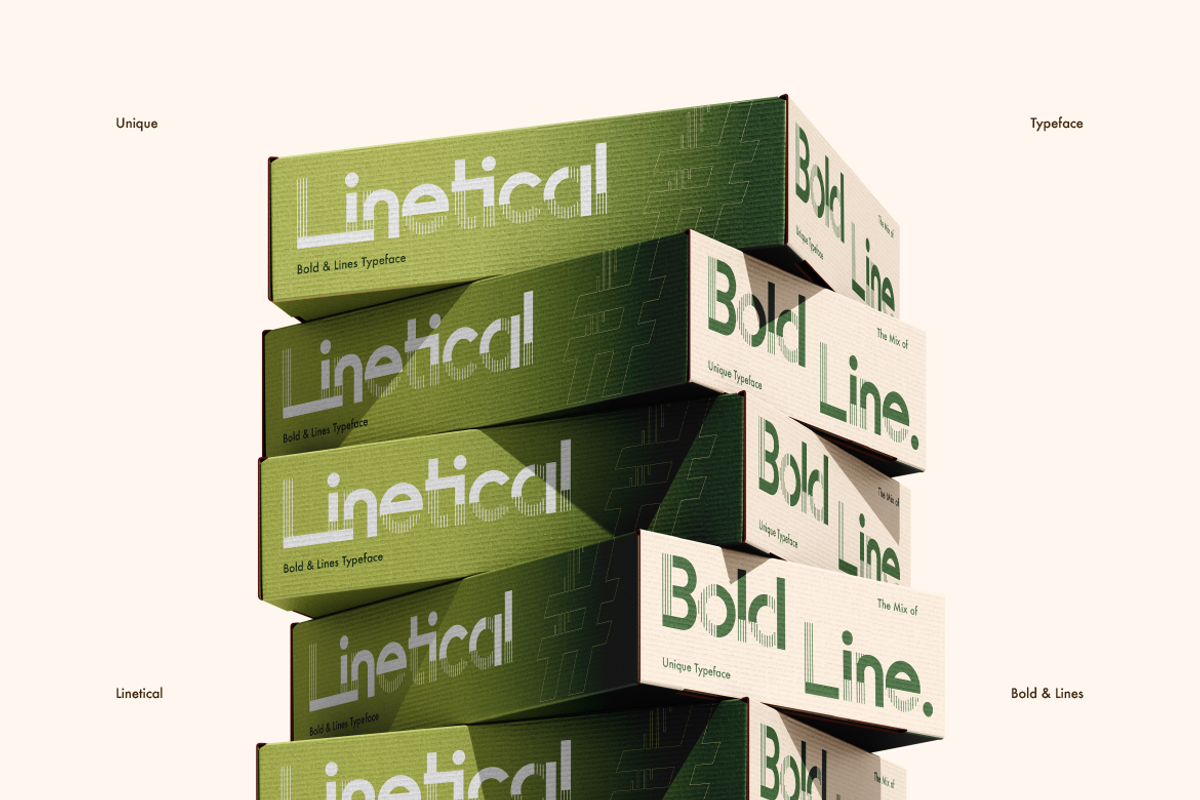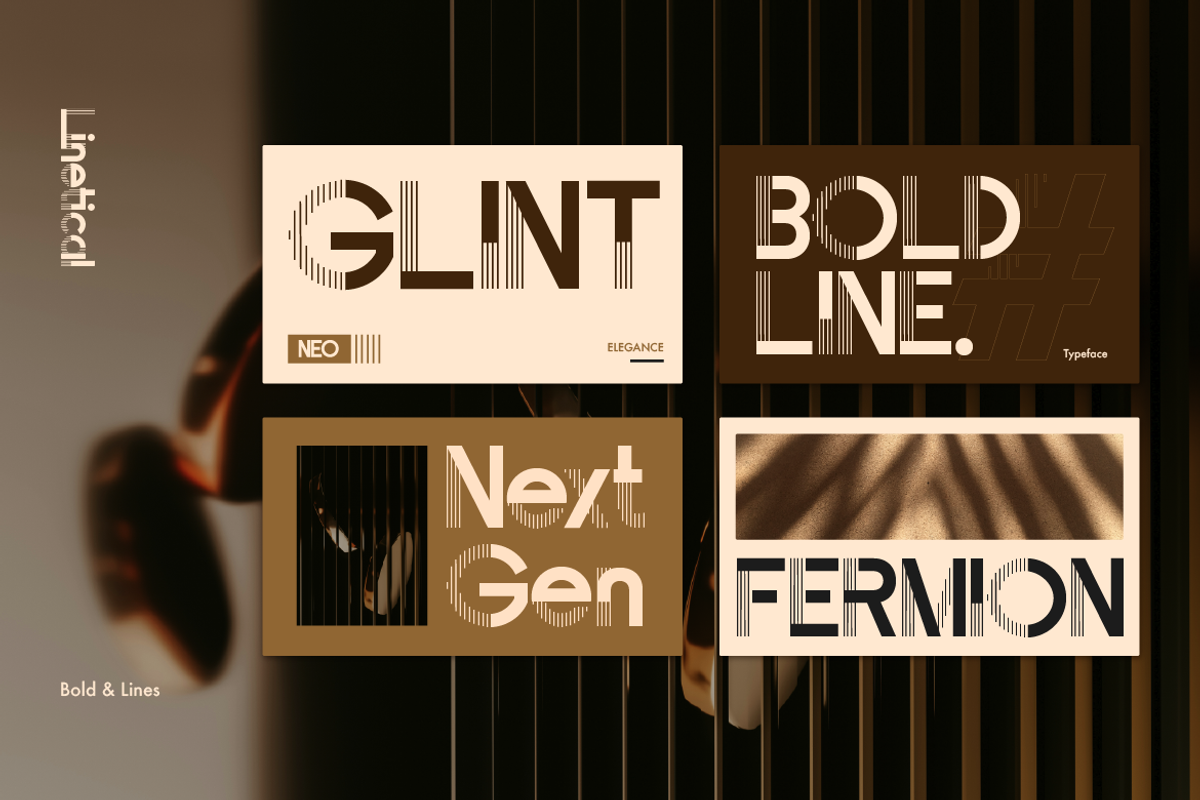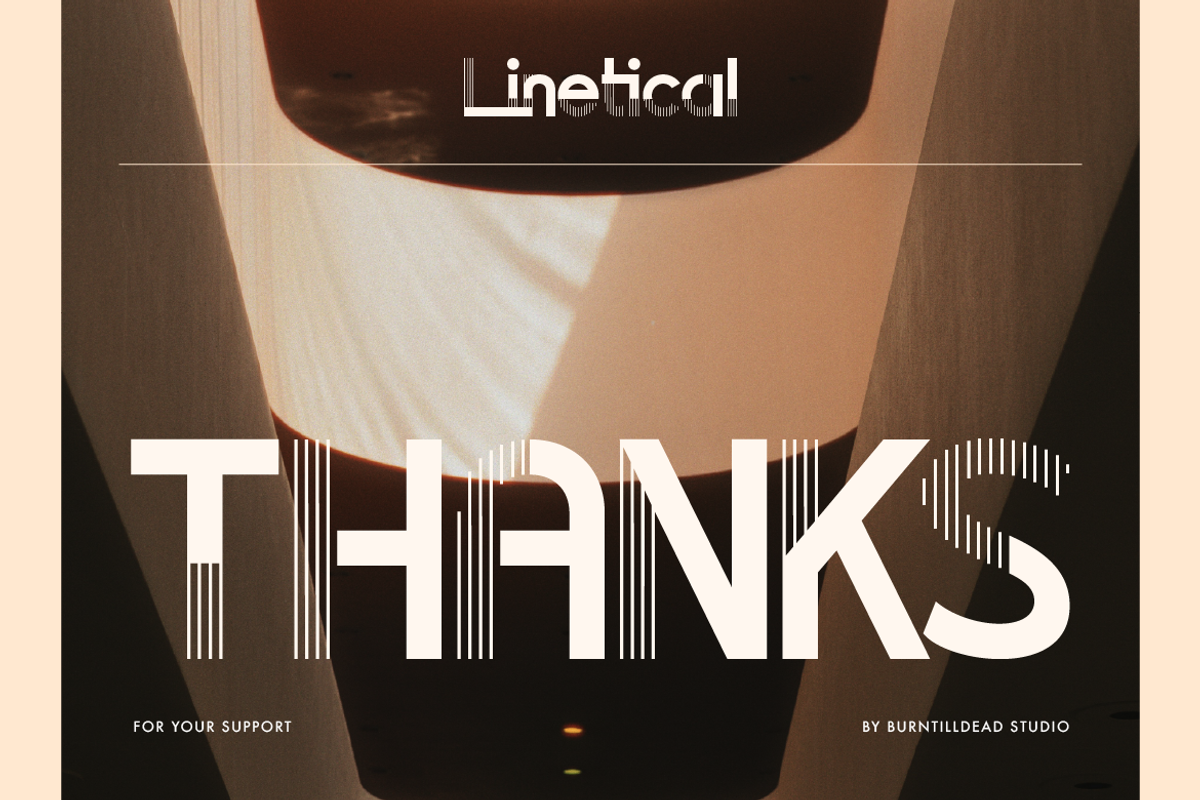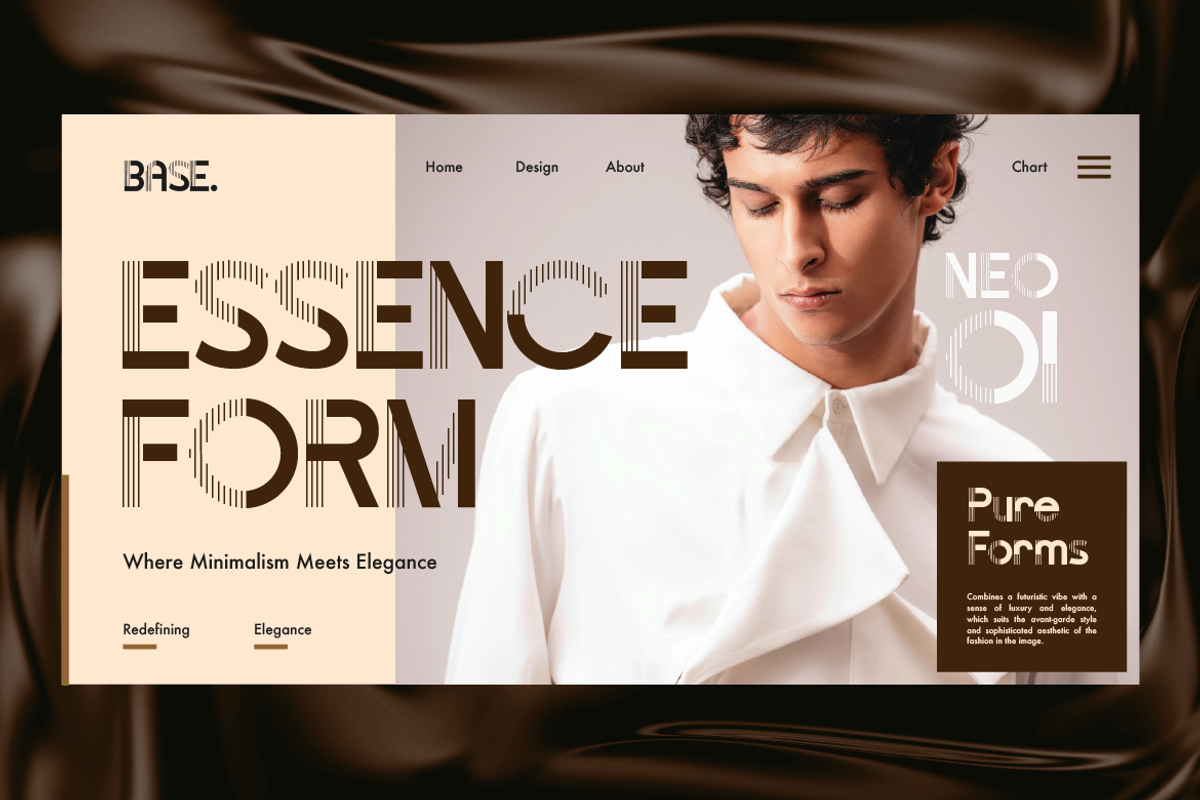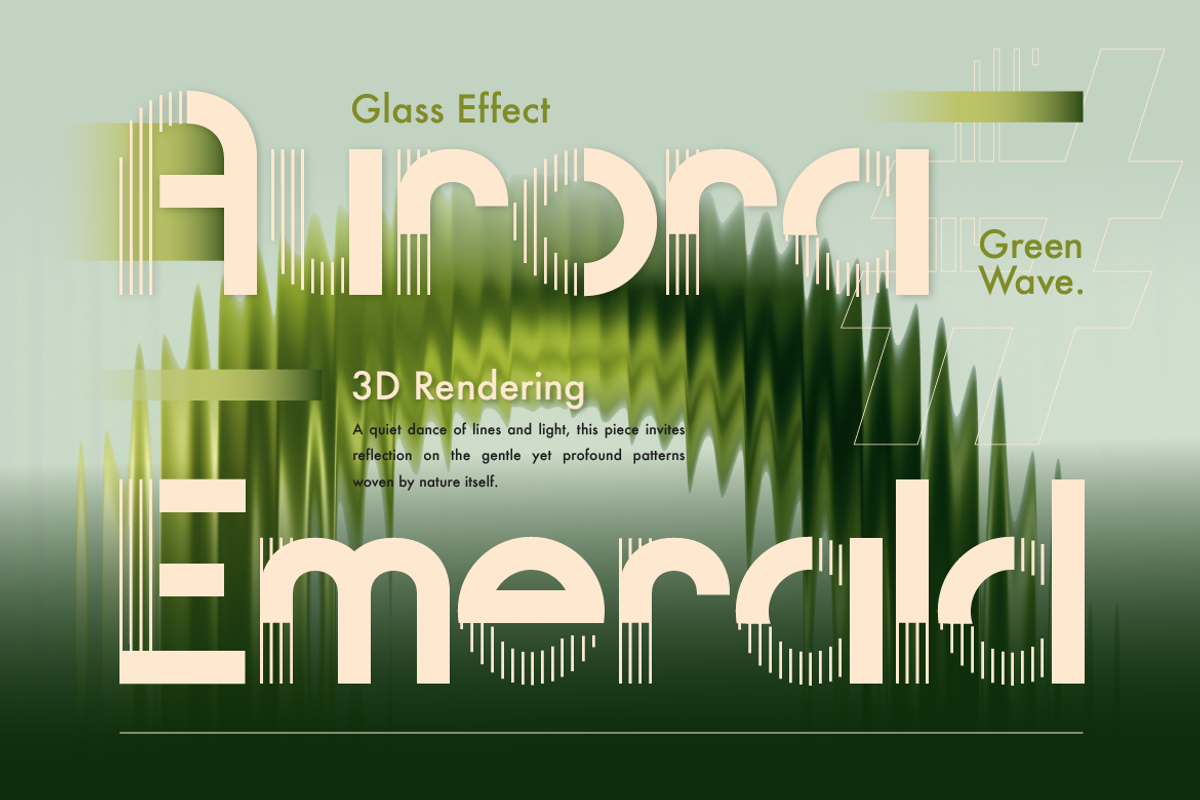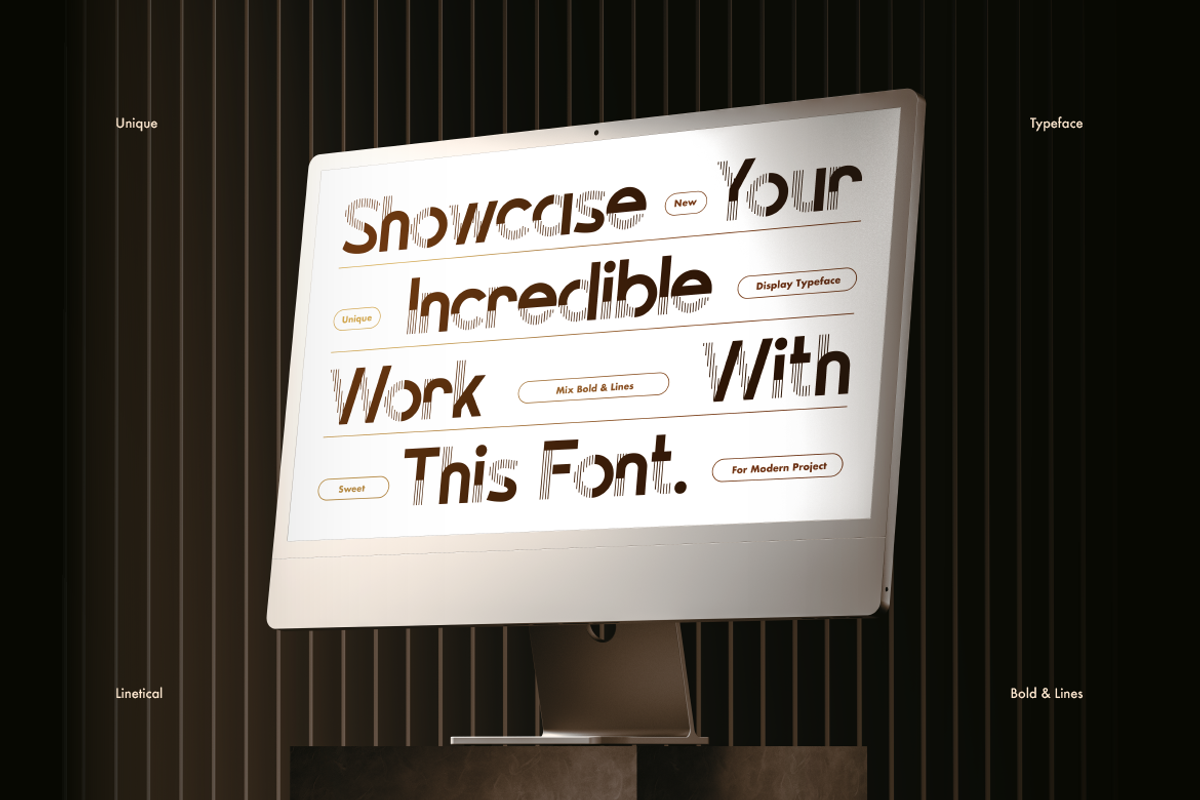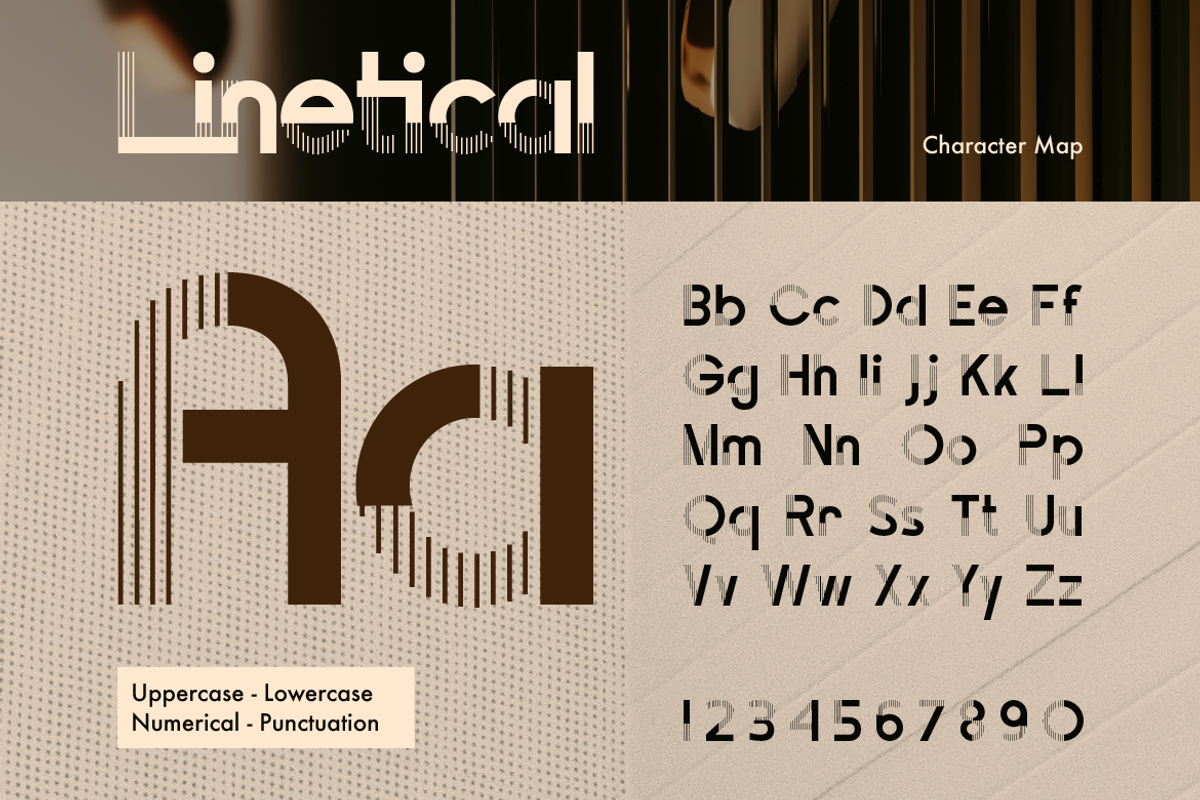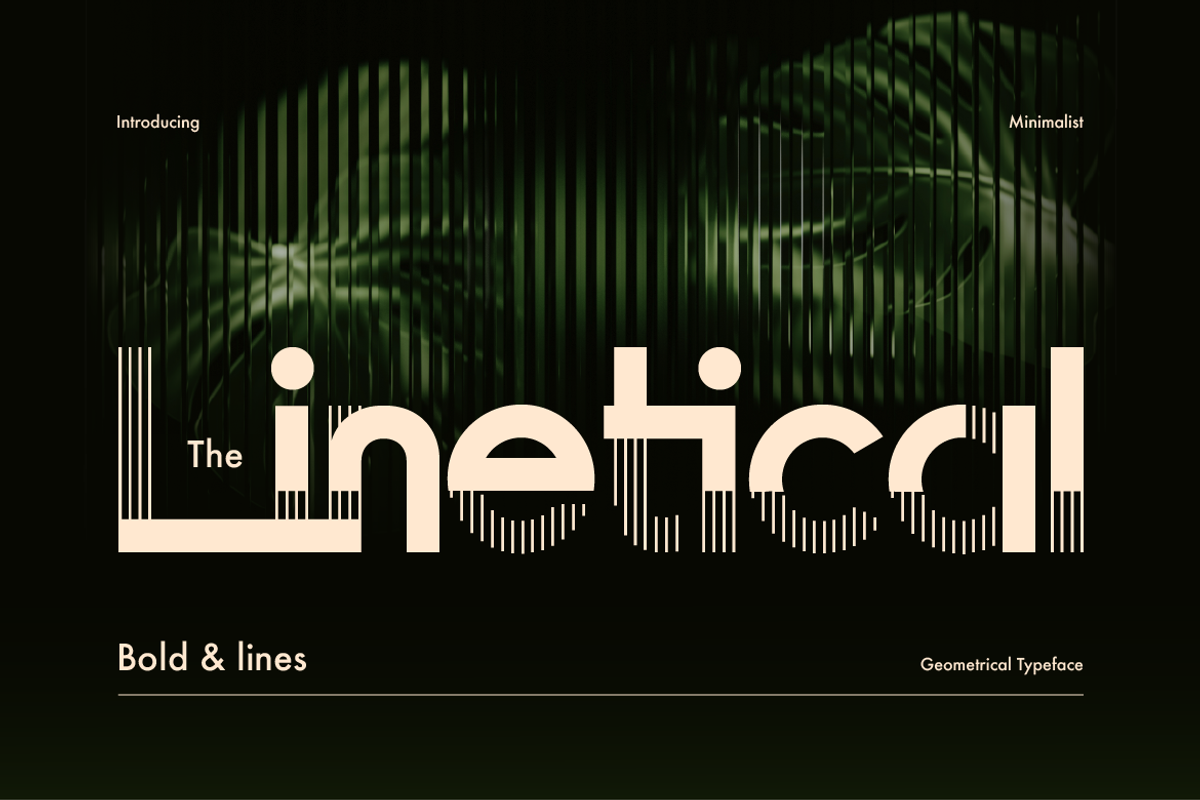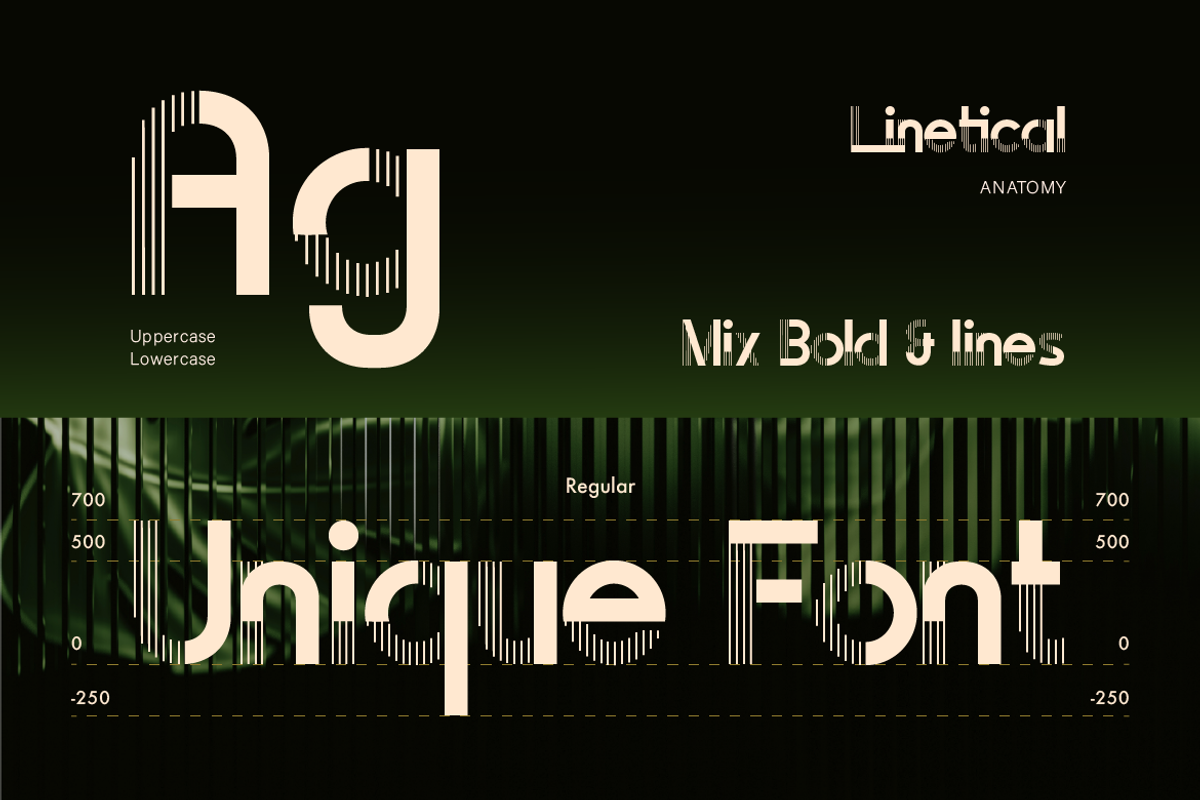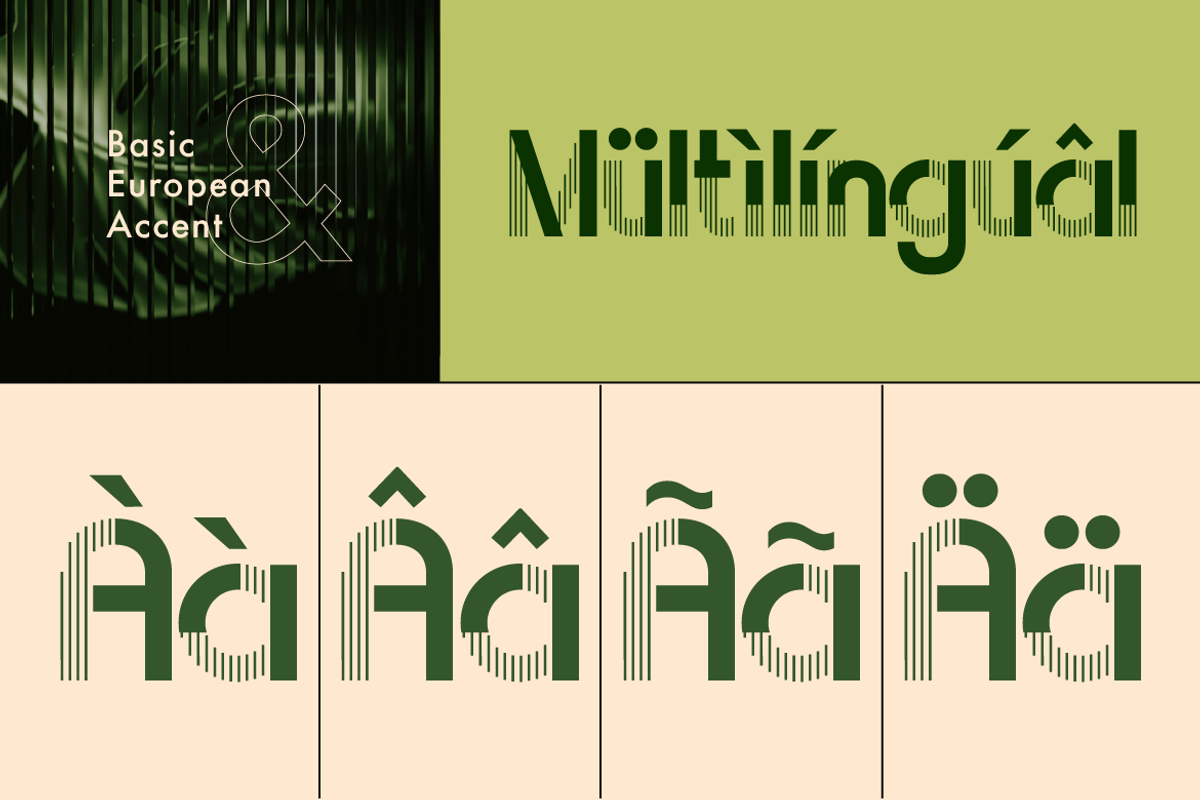
Linetical
Introducing Linetical, a geometrical typeface that combines the bold of sans serif with delicate lines in every each letter. This unique combination creates a modern aesthetic and visually dynamic look. This minimalist yet elegan font perfect for capturing attention while maintaining sophistication. Ideal for branding, headlines and modern design.